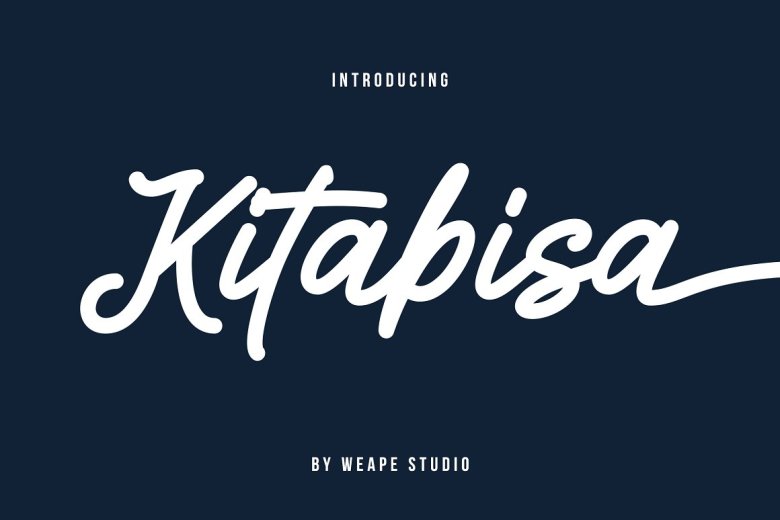
Kitabisa Font
Kitabisa is script font with unique monoline style for your daily and project needs ex: logo, fashion, apparel, photography logo, watermark, signature, quotes, blog header, poster, wedding, invitation, stationery, branding, letter, etc. Kitabisa comes with several stylistics, ligatures and swashes.
Kitabisa Script Font